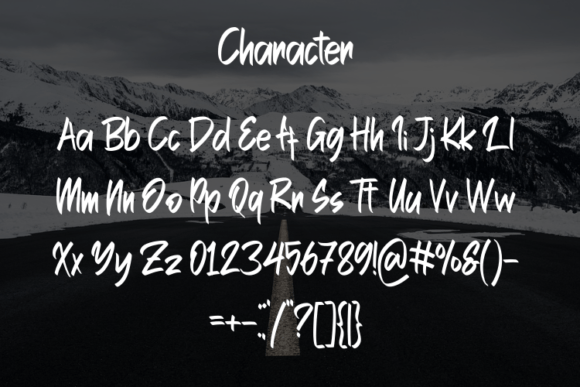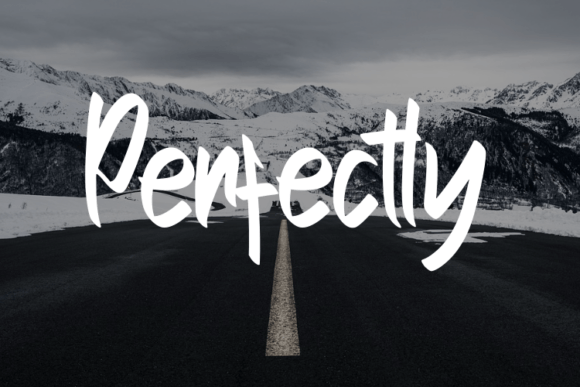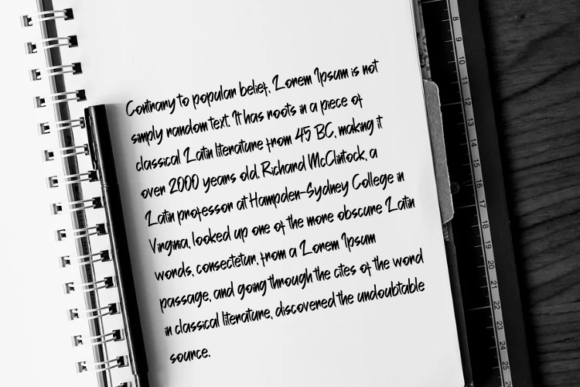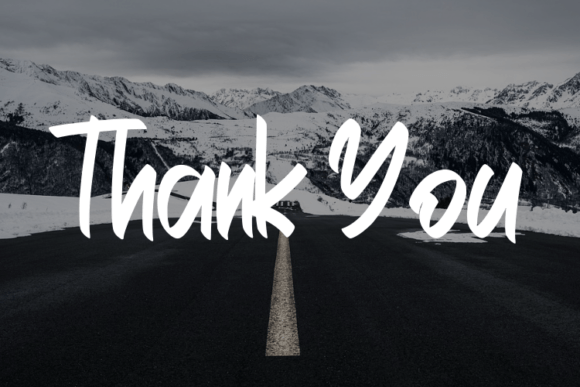
Winter Style Font
Elevate Your Designs with Winter Style Font
Winter Style Font is a beautifully modern script typeface that blends elegance and minimalism. Crafted with smooth curves and stylish strokes, this font delivers a sophisticated touch to every creative project. If you’re looking for a typeface that radiates class and professionalism, Winter Style Font is an ideal choice.
Ideal for Fashion and Luxury Branding
This typeface was designed to suit high-end branding and refined aesthetics. Whether you’re working with fashion brands, upscale product lines, or lifestyle magazines, Winter Style Font adapts effortlessly. The lettering carries a balance of grace and confidence, making it a great match for:
• Elegant logos
• Fashion magazine covers
• Designer clothing labels
• Social media graphics
• Book or movie title designs
• Product packaging and tags
By using Winter Style Font, your brand or design instantly gains an upscale, modern look. And since it’s so versatile, it fits both digital and print media perfectly.
Designed for Stylish Professionals
Winter Style Font doesn’t just look beautiful—it performs well across multiple applications. You can use it in Adobe Illustrator, Photoshop, Canva, or any design software that supports standard font formats. The spacing, ligatures, and balance of the font ensure high readability without sacrificing its luxurious style.
This makes it not only stylish but also user-friendly for professional designers, marketers, and creatives who want dependable performance without compromising on flair.
Add a Signature Feel to Any Project
One of the best aspects of Winter StyleFont is its ability to mimic a signature style. If you’re building a personal brand or want a font that adds personality to your visual identity, this font delivers. The flowing curves and handwritten elegance give your content a personal yet polished look that feels exclusive.
Use it to design business cards, blog headers, beauty packaging, and more. Even the smallest details in your visuals—like call-to-actions or footers—can benefit from the charm this script font brings.